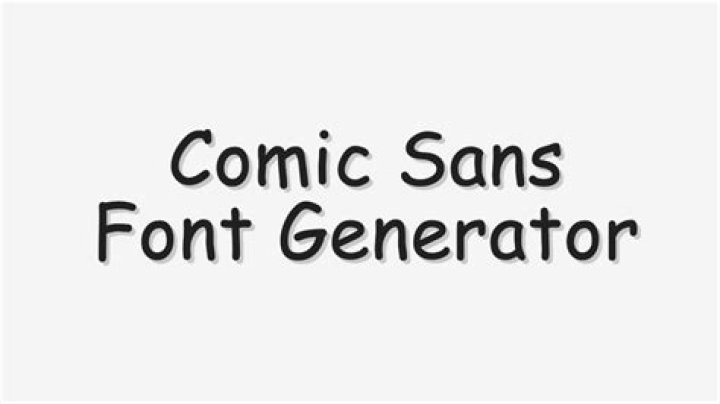
What font is closest to Comic Sans?
Similar Fonts to Comic Sans
- Coco Banana script font.
- Coffee Morning Sans Serif.
- Olive Sans handwritten sans font.
- Qarmic Sans Pro font family.
- Bullate comic book font.
- Leading Role sans serif family.
- Swingsnug playful display sans font.
- Polers handwritten font.
Is Comic Sans good for dyslexics?
Most of the recommendations come from associations for people with dyslexia and they agree in using sans-serif fonts. The British Dyslexia Association recommends to use Arial, Comic Sans or, as alternatives to these, Verdana, Tahoma, Century Gothic, and Trebuchet [2].
Why do teachers always use comic sans?
Comic Sans uses a distinct shape for each letter, making it easier to recognize your letters. Comic Sans also does not have serifs (the little lines on the bottom/tops of letters.) When reading print, serifs can make it easier to stay on a line, but when you are learning it tends to blur the letters together.
What are typefaces similar to Comic Sans?
Although the result doesn’t resemble Comic Sans all that much, HVD Comic Serif Pro is an interesting example of a typeface based on Comic Sans. Whimsical, and free. The best example of a typeface similar to Comic Sans I can think of however, is Neue Comic, an updated version of Comic Sans in two…